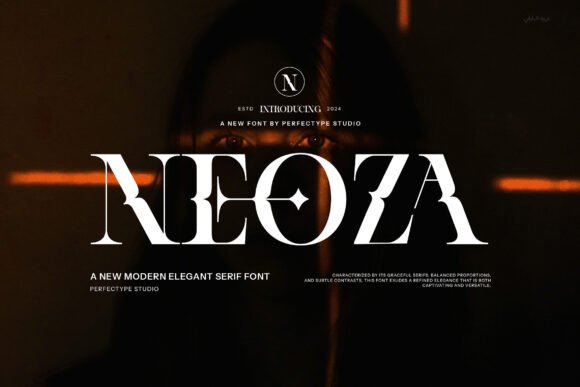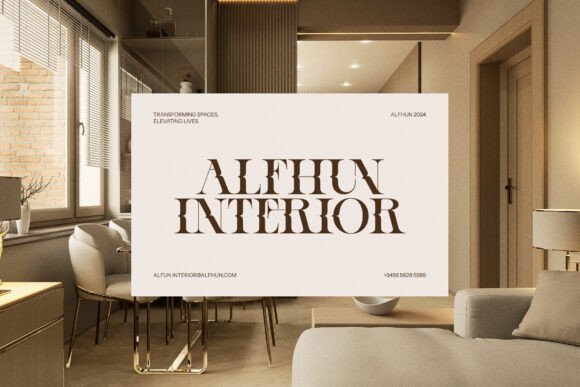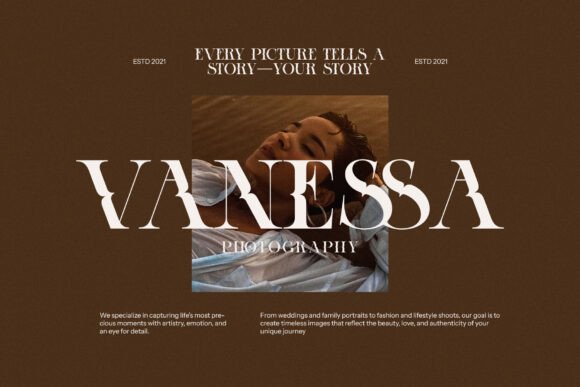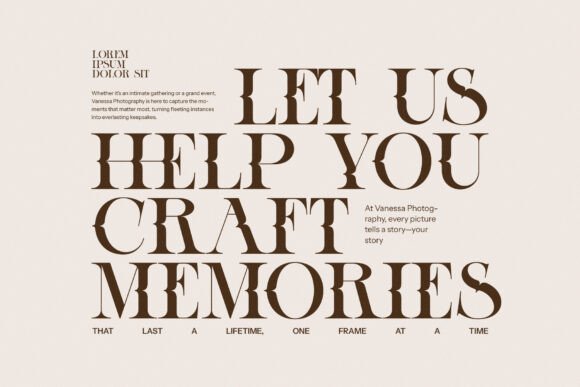
Neoza Font: Elegant Serif Typography for Branding & Logo Design
About the Neoza Font
Experience the unique personality of Neoza Font, a font designed for impact. Neoza is an elegant serif font that features stylish, curved letters with small lines at the ends of each stroke. It has a classic and sophisticated look, making it perfect for formal invitations, books, and branding. The font is easy to read and adds a touch of refinement to any design.
Neoza’s elegance makes it ideal for projects requiring sophistication: logos, headlines, short-form text in brochures or invitations, and high-end packaging. It’s less suitable for large blocks of body text or UI elements where readability over long passages is crucial. Its refined curves could become visually fatiguing in extensive use.
Pairing Neoza effectively depends on the desired emphasis. For a classic feel, consider pairing it with a clean sans-serif like Montserrat or a neutral serif such as Lora. To achieve a more modern look, a geometric sans-serif such as Futura or a contemporary script font could create a striking contrast.
Neoza projects an air of timeless elegance and understated confidence. It’s best suited for brands aiming for a sophisticated, refined image, aligning well with luxury goods, high-end services, or projects emphasizing heritage and quality.
Neoza Font Usage Examples
Neoza Font Example